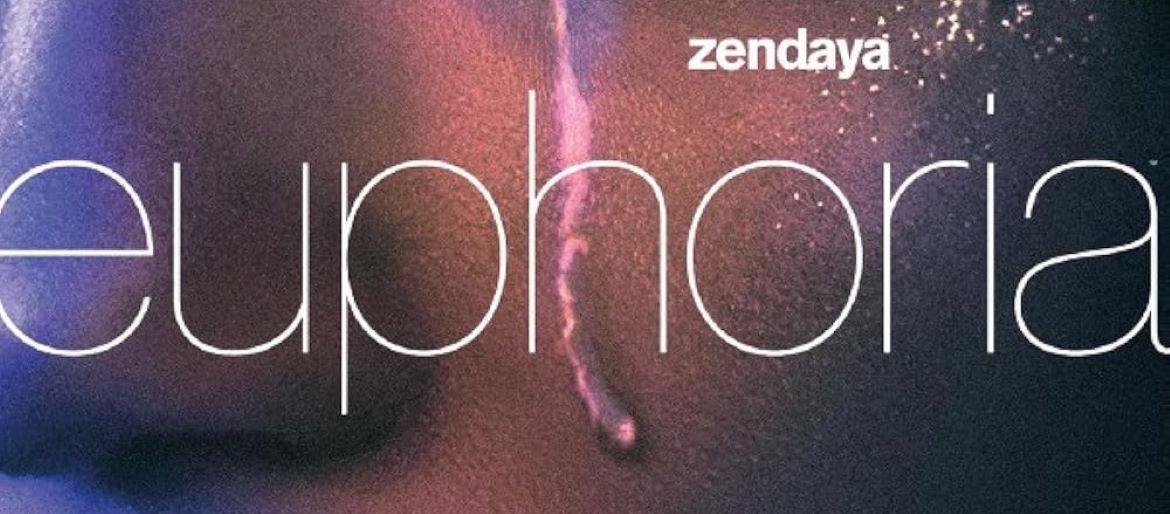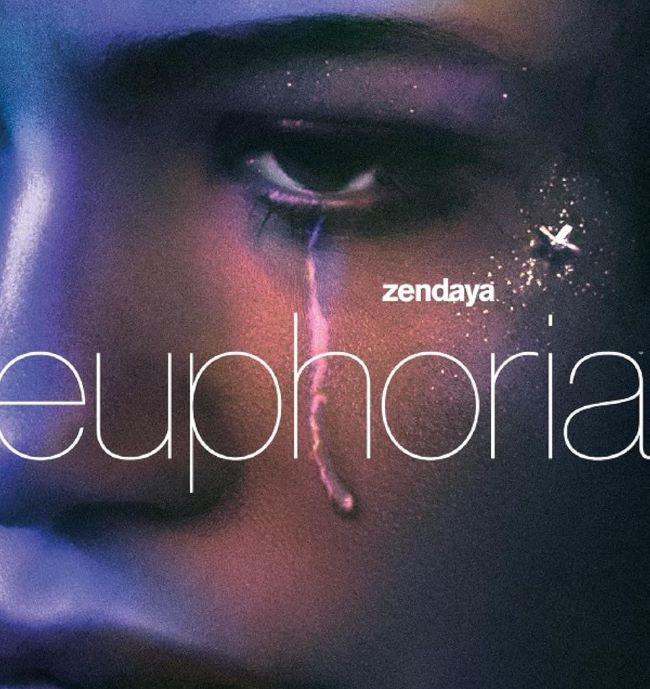
Euphoria font instantly reminds me of the dreamy, edgy vibe of the hit HBO series Euphoria. With its sleek, modern lettering and soft neon-like glow, the Euphoria font perfectly reflects the show’s mix of raw emotion and late-night allure. I personally love how this font feels both stylish and intense—it’s perfect for designs that need a bold yet artistic touch. Whether used for party flyers, social media graphics, or fan art, the Euphoria font adds a moody, contemporary aesthetic that captures the spirit of youth and self-discovery. In my opinion, it’s one of those typefaces that feels alive, almost like it’s pulsing with music and emotion. Original font is Neue Helvetica Pro 25 Ultra Light. But you can also check the below 2 free (personal) alternative fonts.
Euphoria Font
About Euphoria
Euphoria is an HBO teen drama that premiered in 2019. The series follows a group of high school students, including protagonist Rue Bennett, as they navigate love, identity, addiction, and the challenges of growing up in a complex modern world.